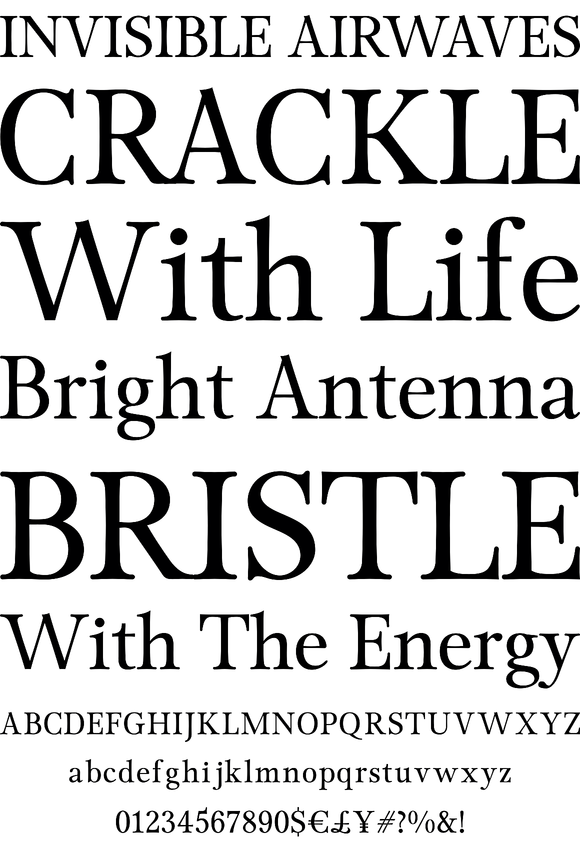
P22 Foxtrot
Foundry: IHOF
The design of P22 Foxtrot is inspired by the lively ballroom dance of the same name. Foxtrot is a transitional antiqua with rounded serifs that features ligatures, small caps, old style numbers and full Central European support for those with applications that support OpenType features. The companion, Foxtrot Sans, is a sans serif version with a little more jazzy expression. Both fonts are great for text and display.
Foxtrot and Foxtrot Sans Pro OpenType features include: Stylistic Alternates, Standard Ligatures, Discretionary Ligatures, Historical Forms, Small Caps, Oldstyle Figures, Fractions, Denominators, Numerators, Superscript - primarily for footnote indication, and Scientific Inferiors - primarily for chemical or mathematical notation.
P22 Foxtrot was designed by Torleiv Sverdrup.